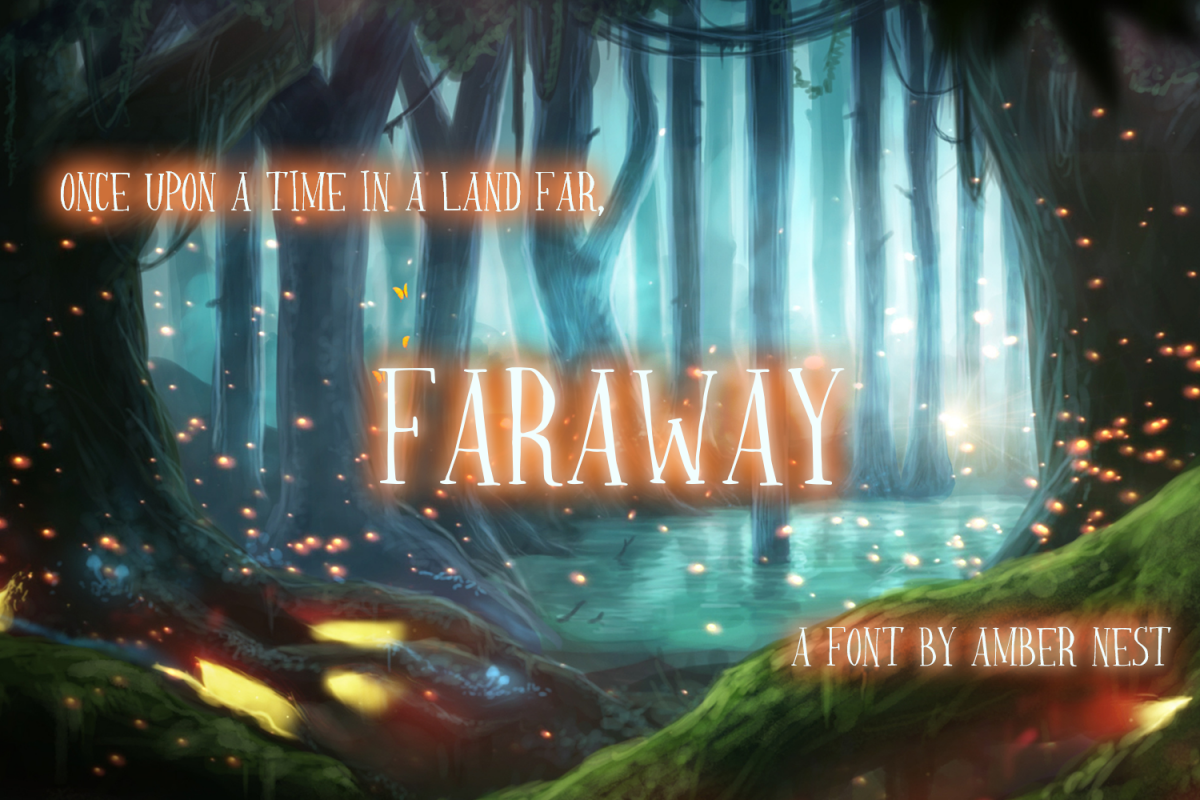
Faraway
Faraway is a hand drawn serif font, crafted with magic and a pinch of of fairy dust!
This fun display font is perfect for book covers, invitations, and more! Use on t-shirts or flyers - bring a little magic into the world!
Numerals
Punctuation
Faraway